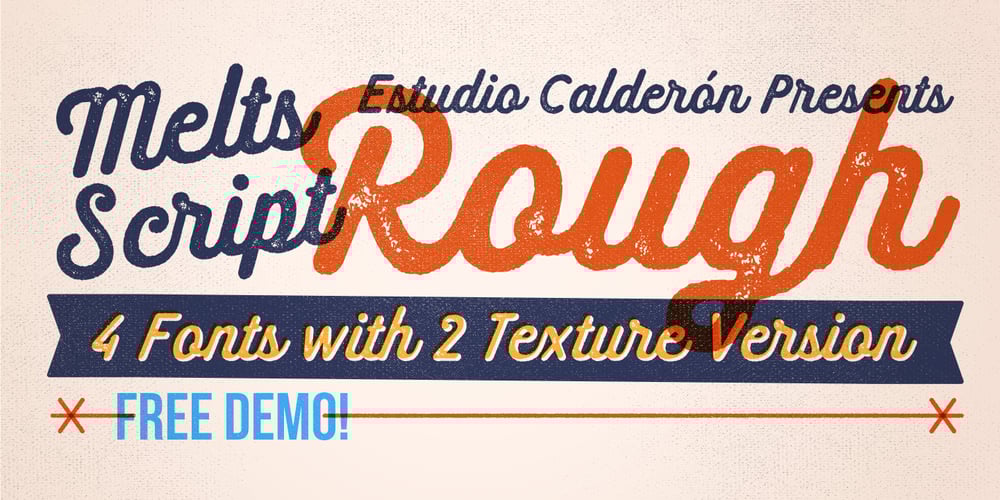
Melts Script Rough
Melts Script Rough font
Melts Script Rough Font Family was designed by Felipe Calderón and published by Estudio Calderon. Melts Script Rough contains 6 styles and family package options. Melts Script Rough by Estudio Calderón is the textured version of Melts Script. It has a texture design in high definition that runs very good in any size and concepts. Good news! It includes a free version of “Melts Script Rough Sanscript One”. Specimen